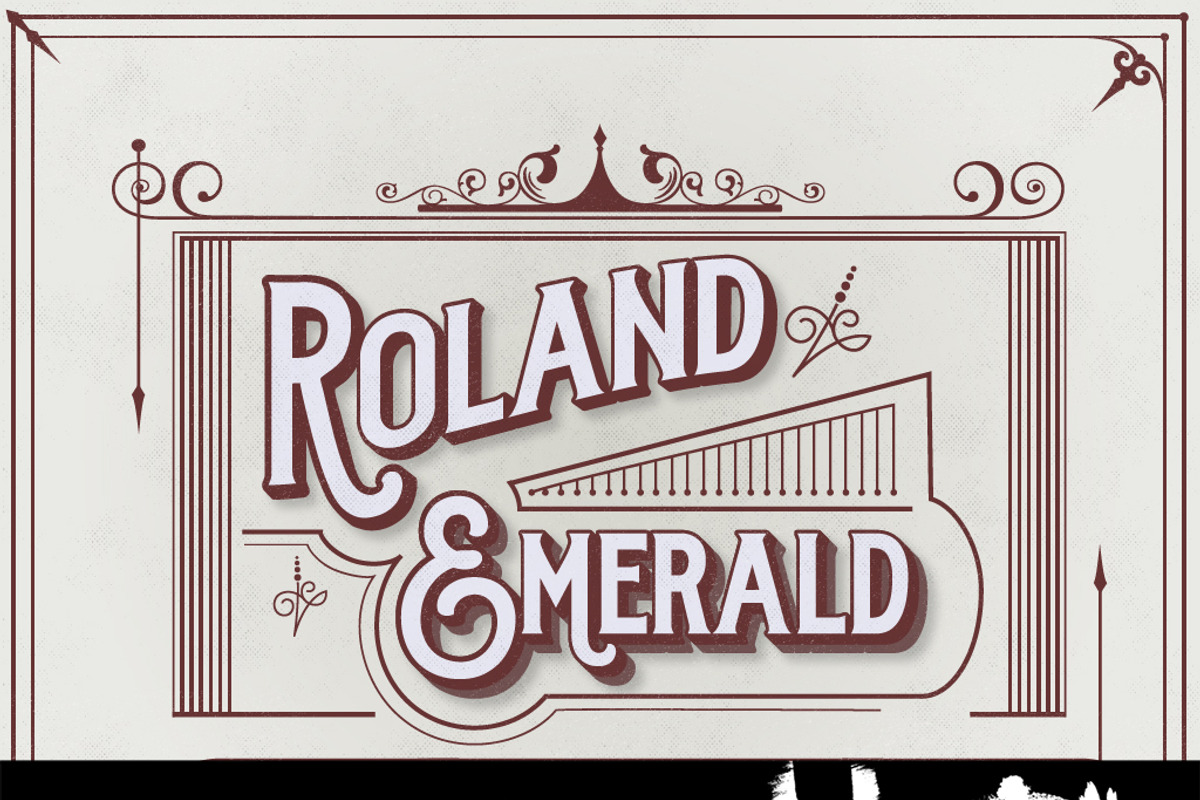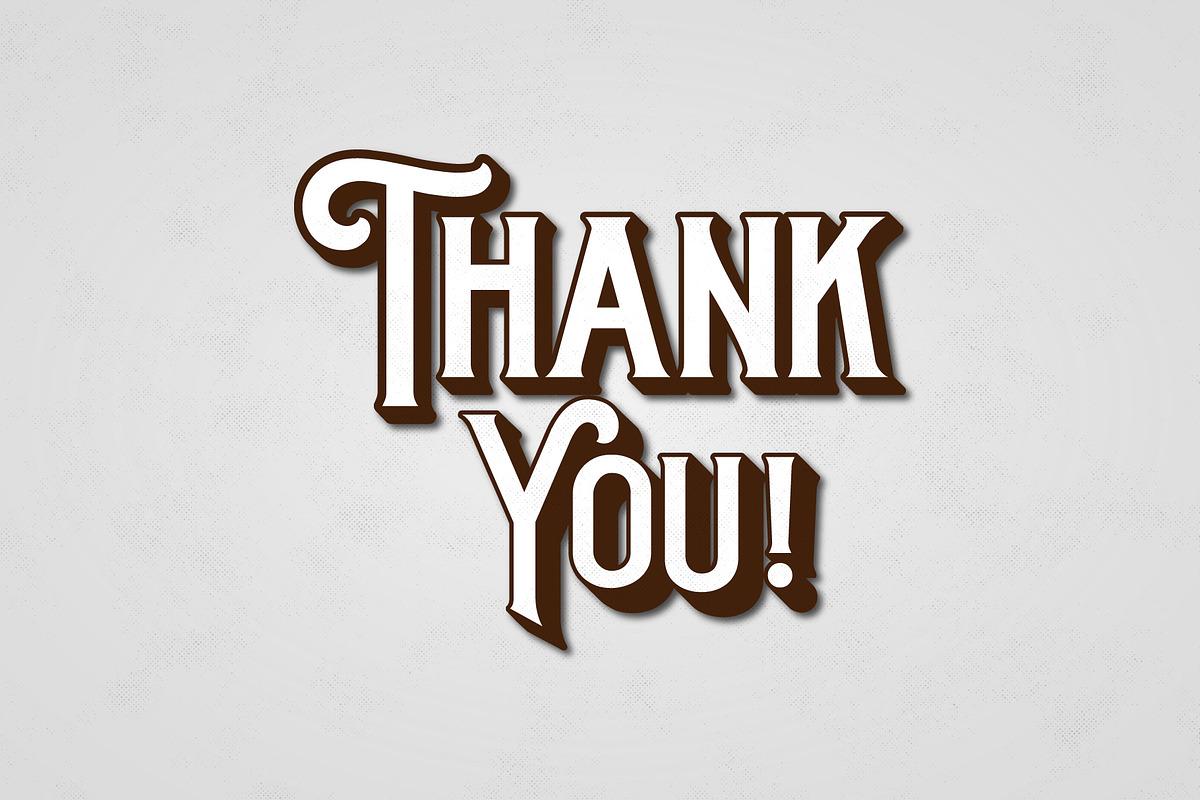
Roland Emerald
Here's a very special font from us to you called Roland Emerald, WAIT!!! not just only one reguler font but it comes with three weight!!
OK, some of you may think 'What's that 'three weight' actualy mean?' and I am realy sure the correct definition for it is available somewhere on someone's blog in the internet world :)
but particularly for this font, it means that you can make an awesome signpainting, vintage, retro, or oldschool design look with one font, without having a high skill on Photosop or Illustrator ( but obviously these two software are highly recommended to use the font ).